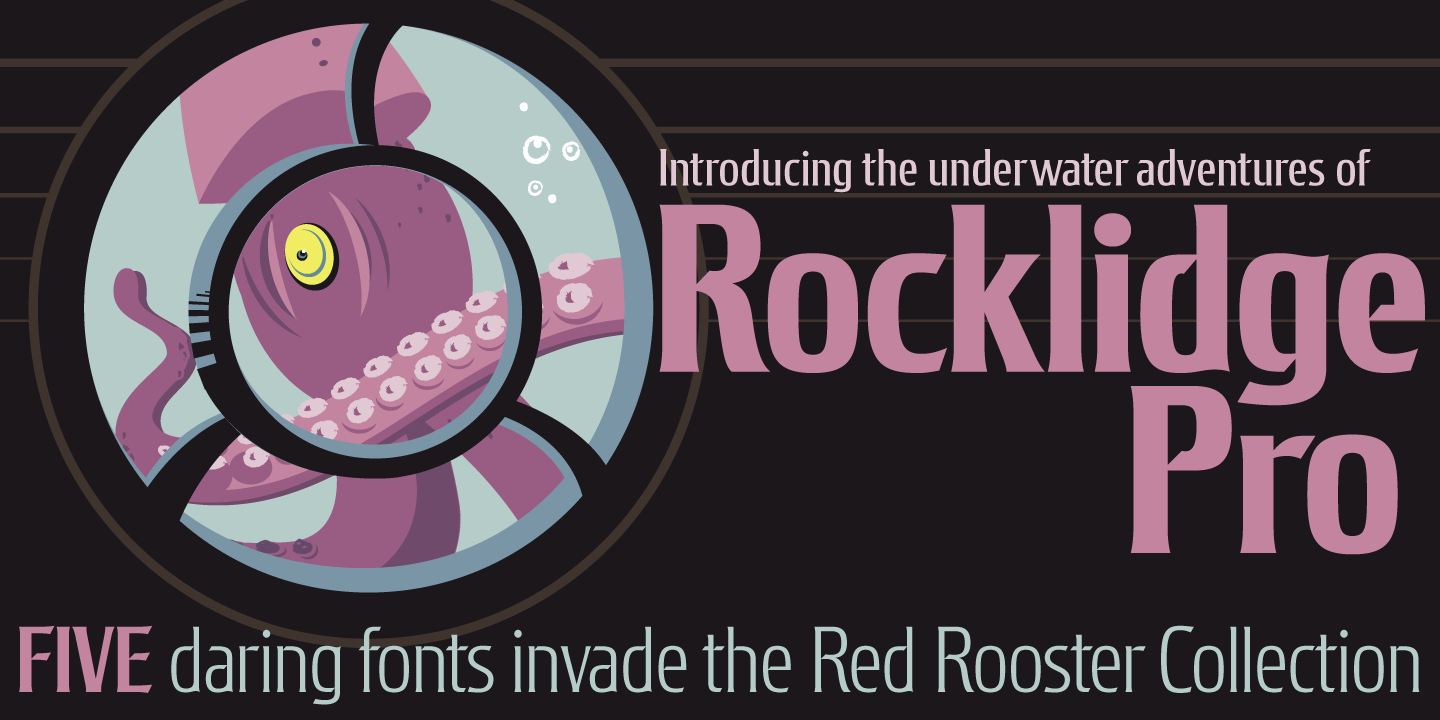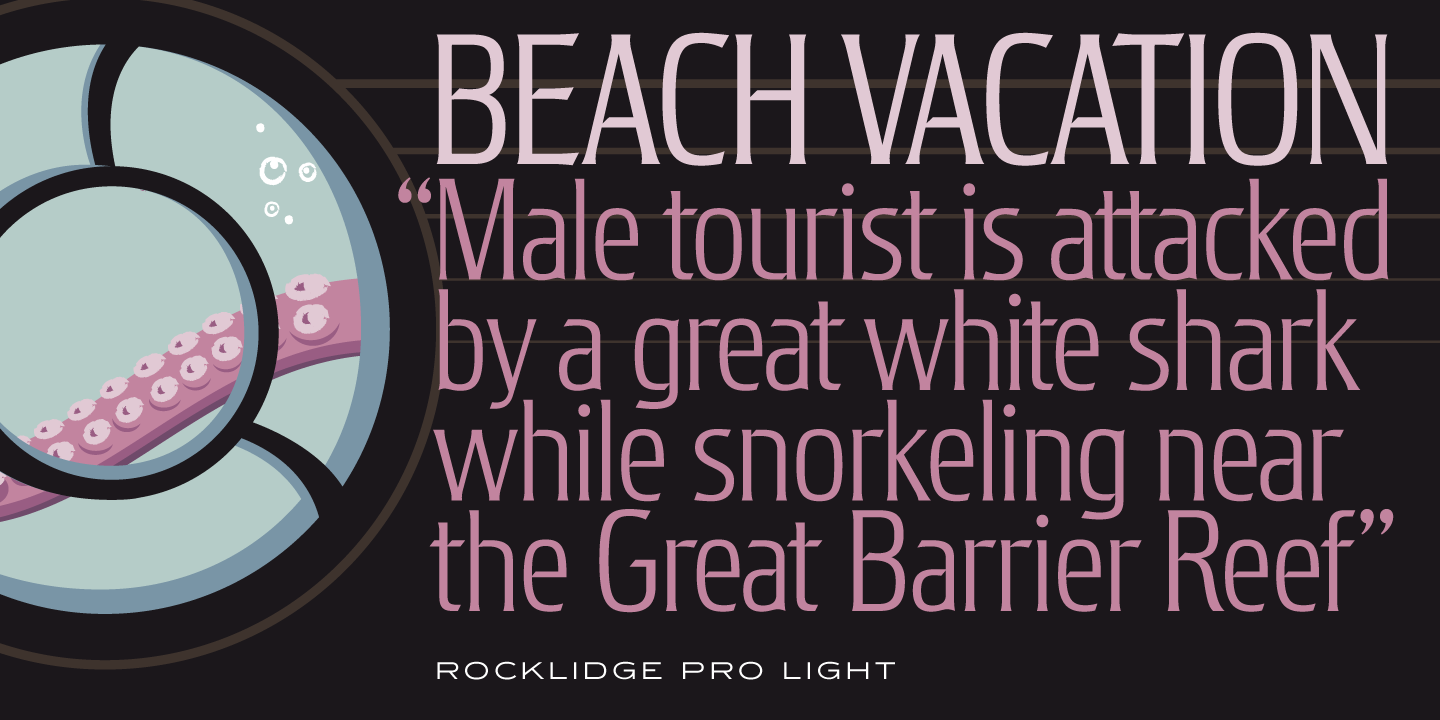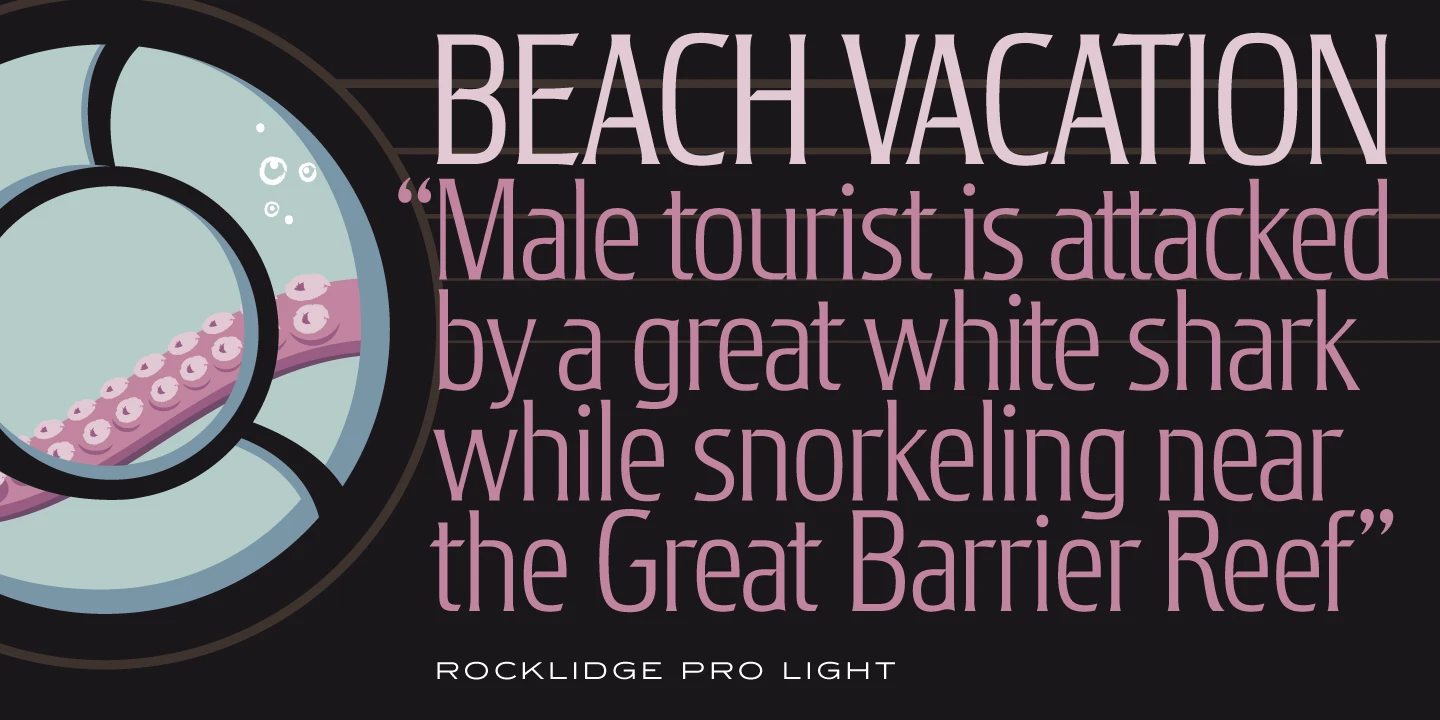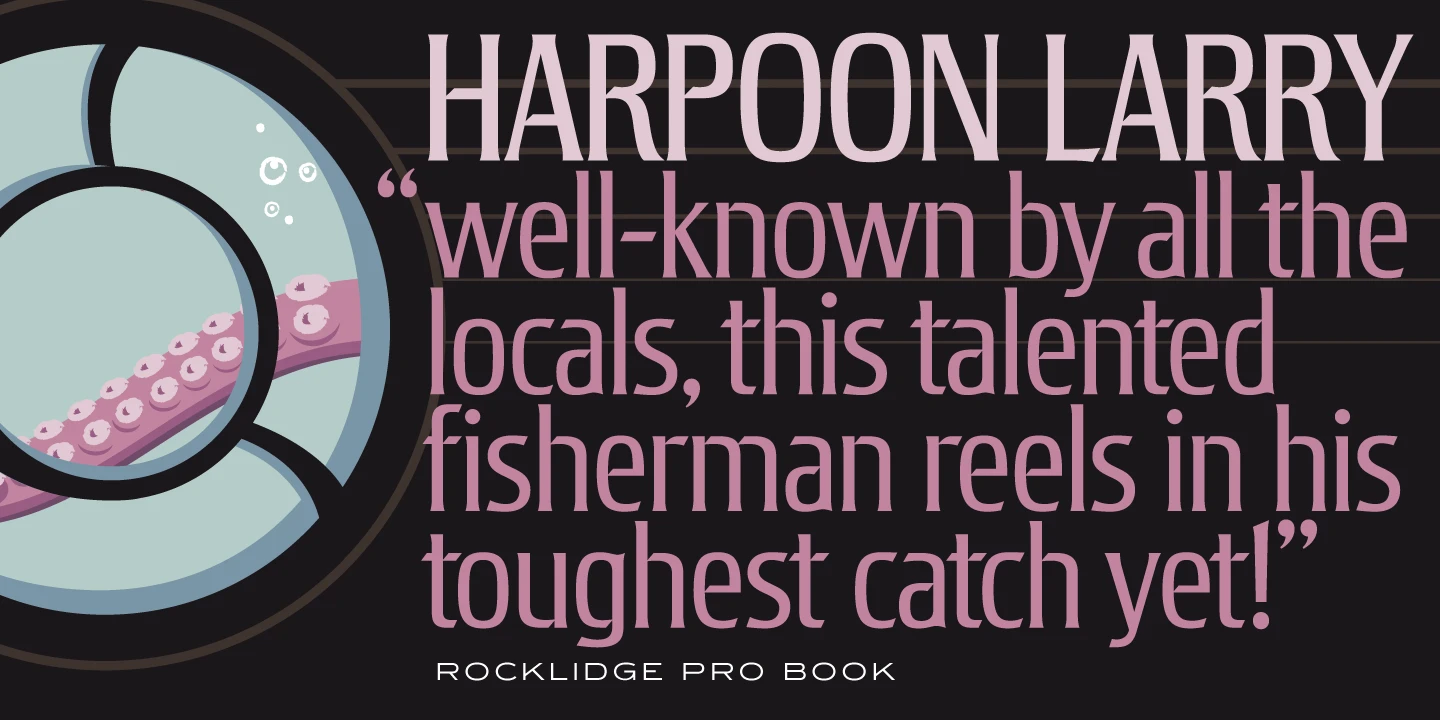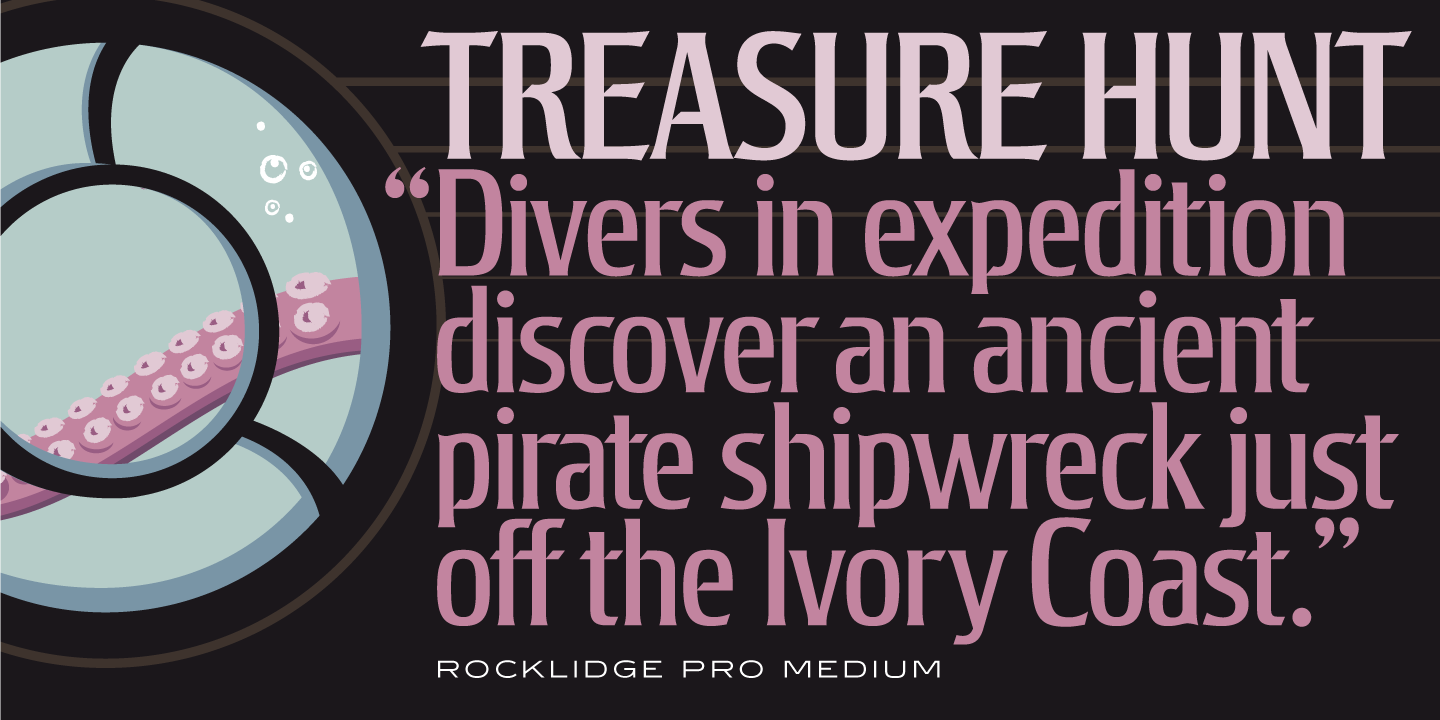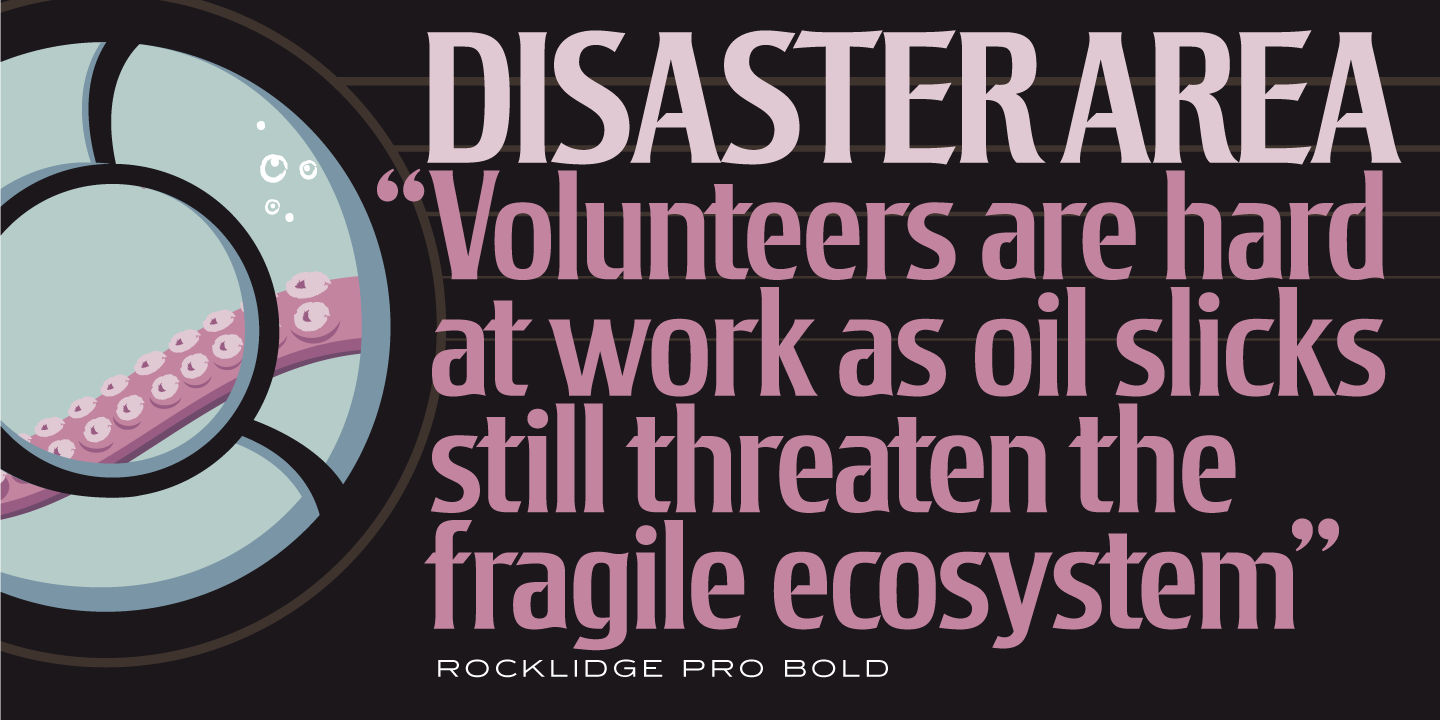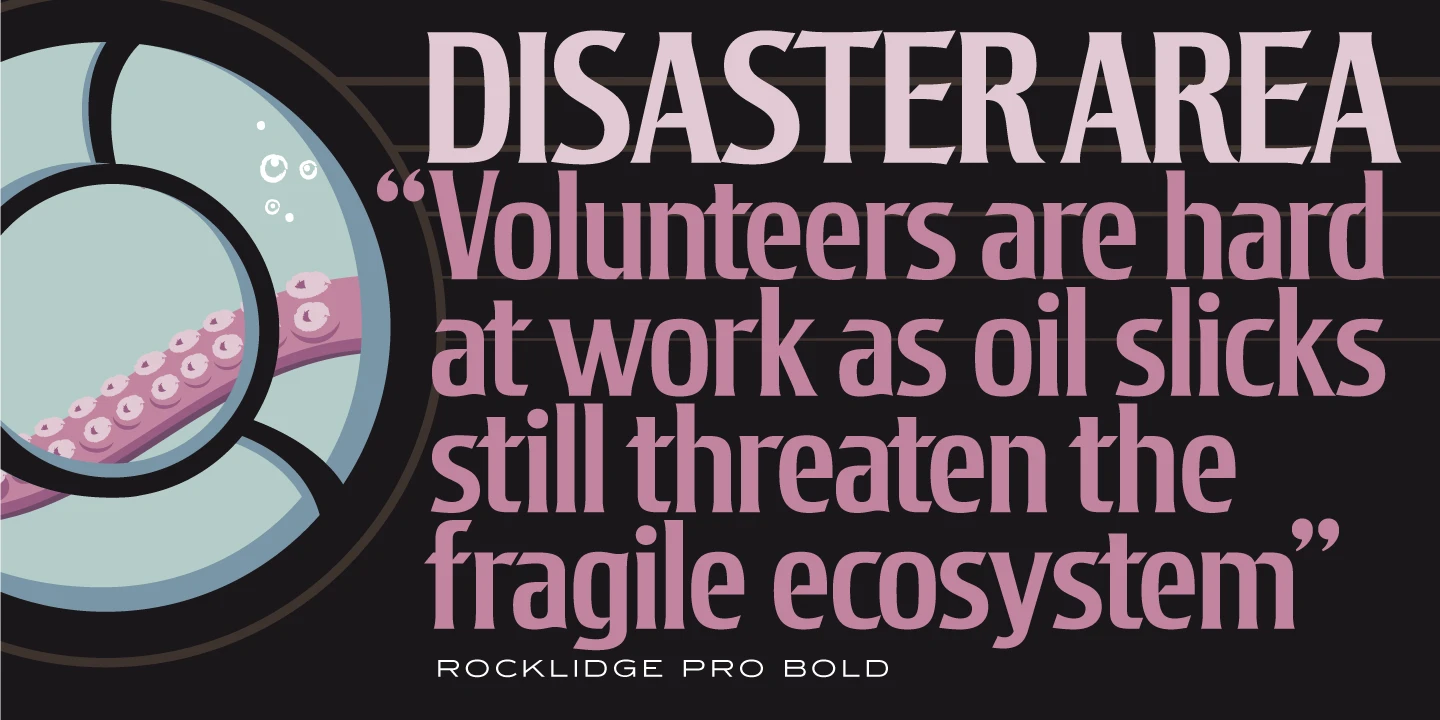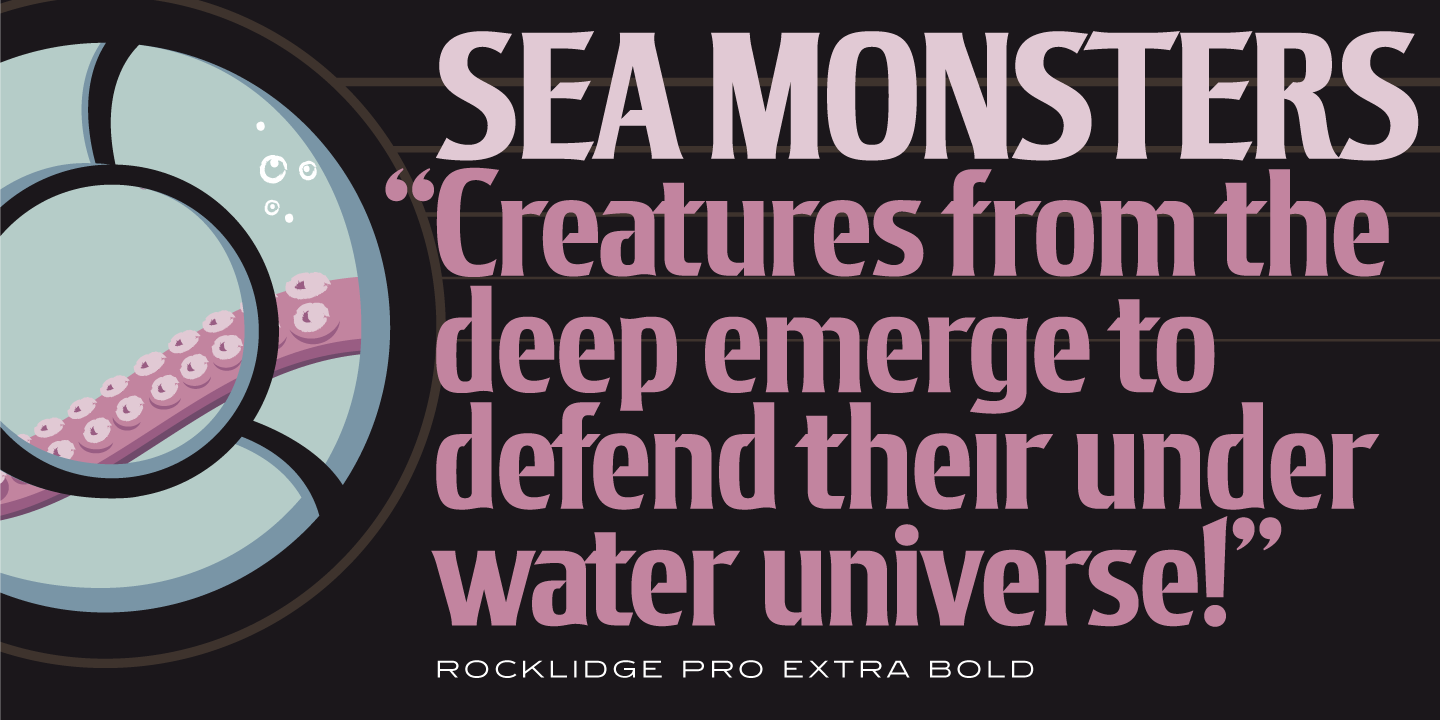
Rocklidge Font Family
Rocklidge is a glyphic font family inspired by the 1965 single-weight typeface ‘Jana,’ created by Richard D. Juenger for the Visual Graphics Corporation (VGC). In 2011, the original concept was expanded into five different weights by Steve Jackaman from ITF and Ashley Muir. The angular joints and spur serifs of Rocklidge give it an engraved or scientific appearance, making it elegant and versatile for display at any size.
• Czech
• Latvian
• Polish
• Slovak
OpenType Features
• Common Ligatures
• Fractions
• Ordinal Numerals
• Stylistic Alternates
• Stylistic Sets
• Subscript
• Superscript